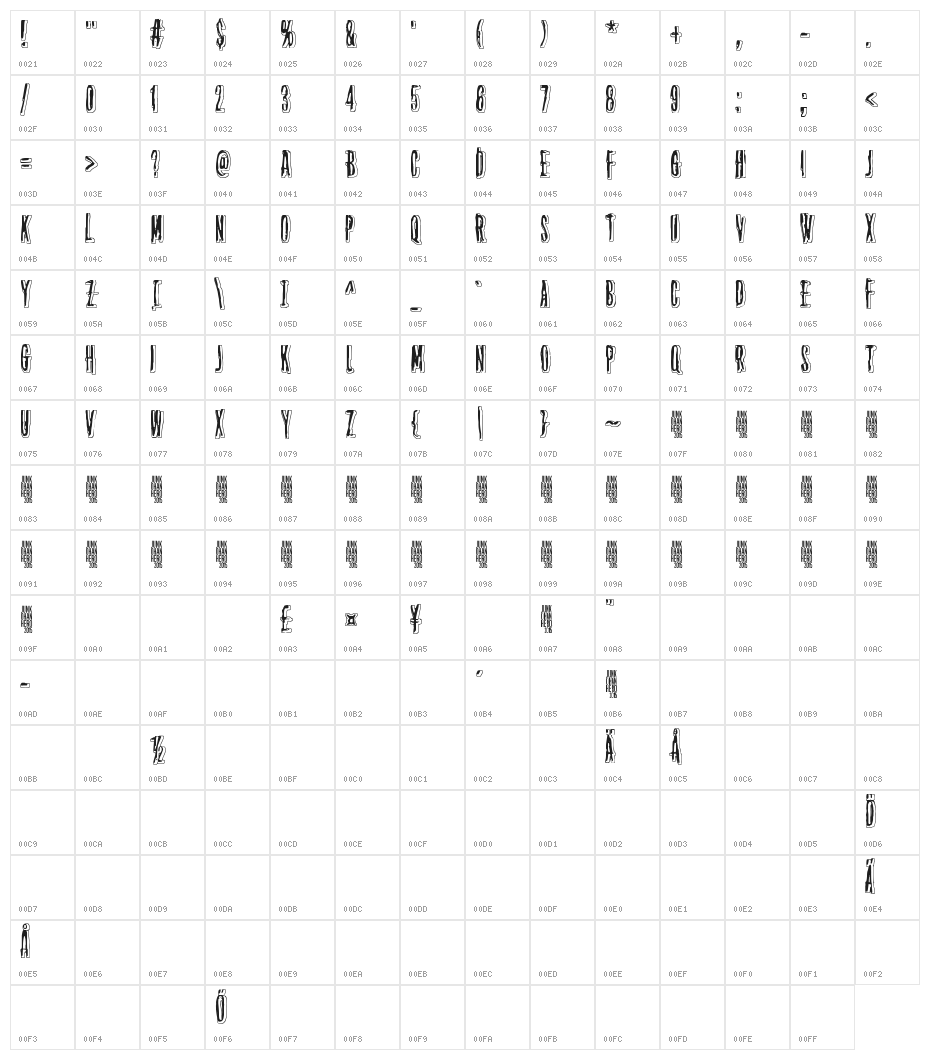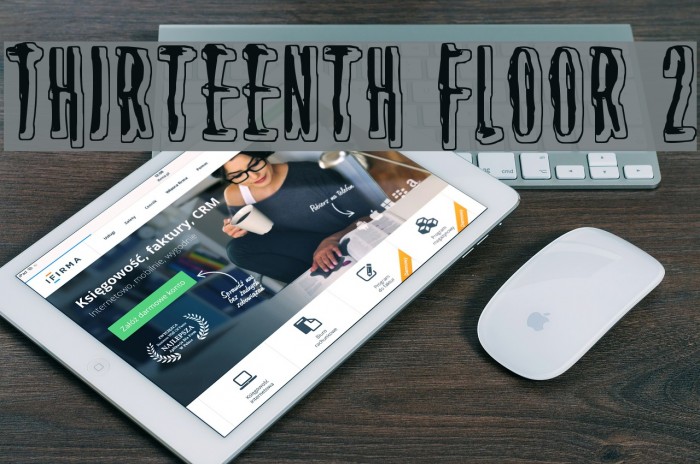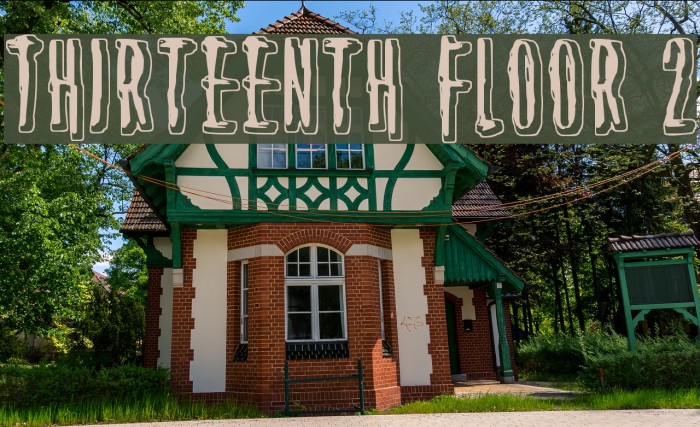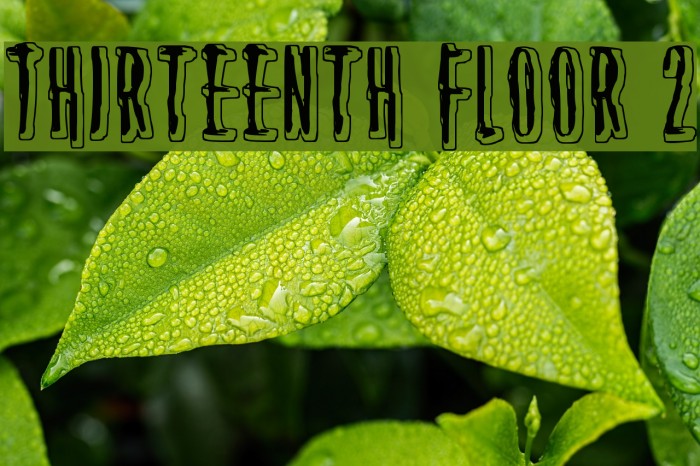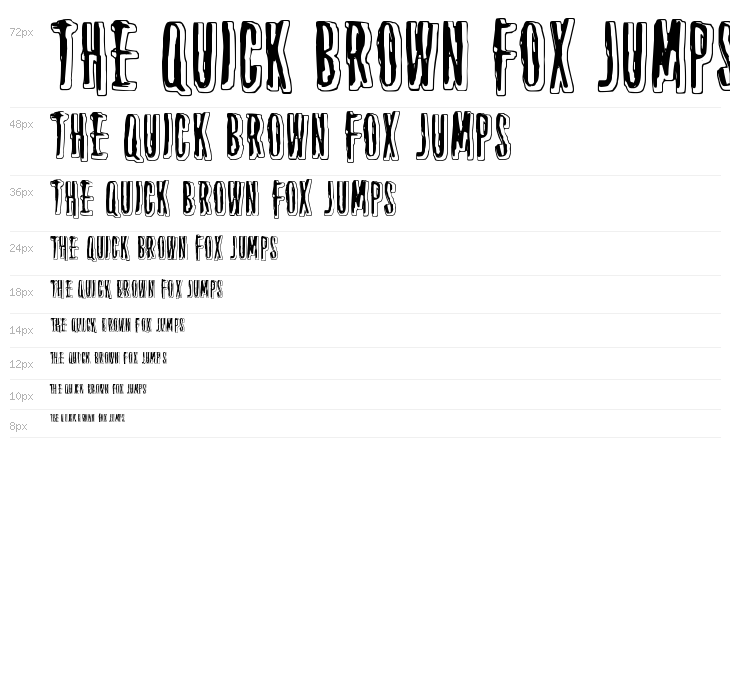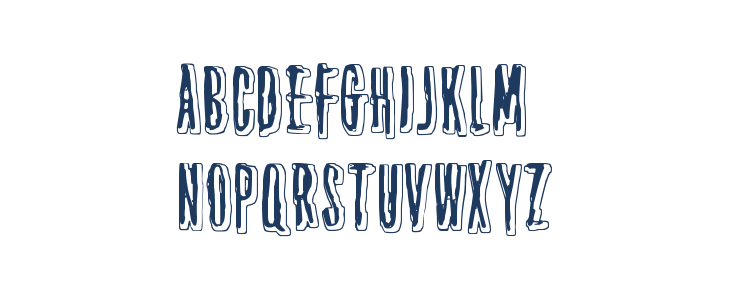
Thirteenth Floor 2 Font
Thirteenth Floor 2 Description
This font features a bold and dynamic style with a hand-drawn appearance. The characters have a rough, textured outline that gives them a unique, edgy look. The uppercase and lowercase letters maintain a consistent height, while the numbers and special characters complement the overall design. The font's irregular strokes and playful form make it stand out, adding a sense of movement and energy. It's ideal for projects that require a distinctive and artistic touch, such as posters, album covers, or creative branding.
| Proposed Projects | Posters, album covers, creative branding, artistic projects. |